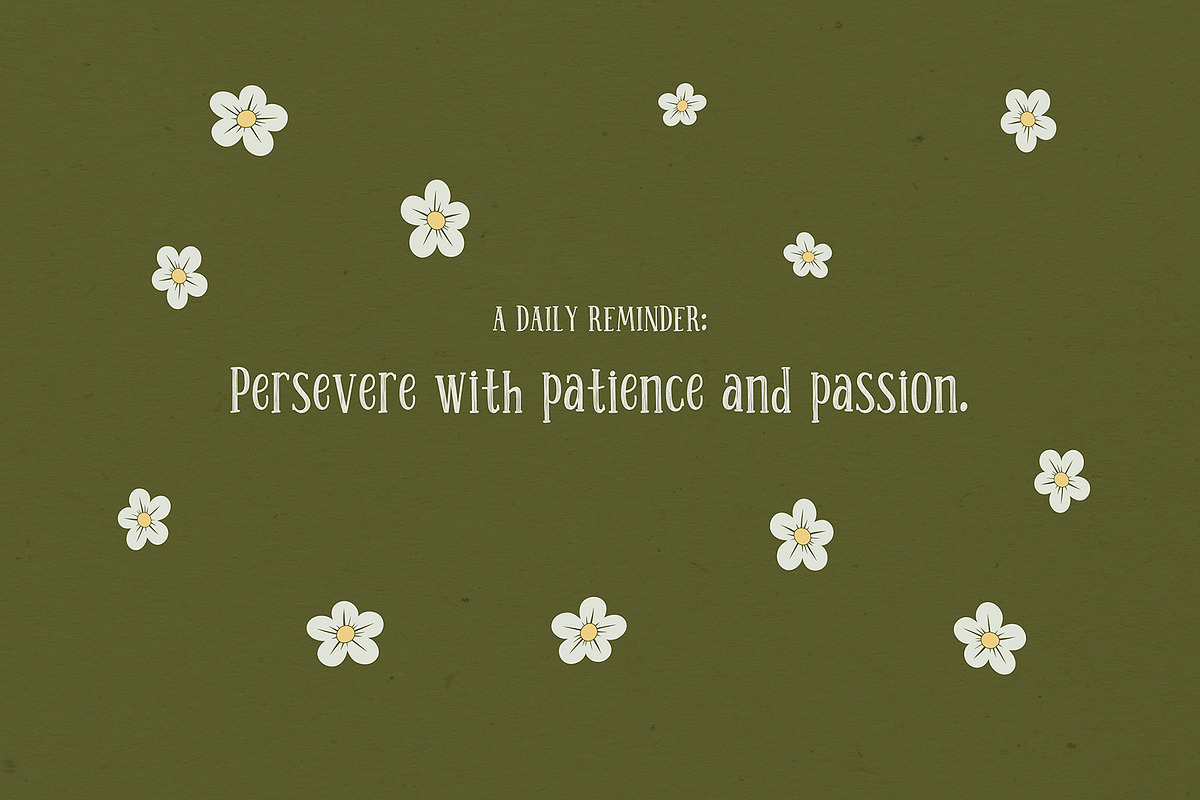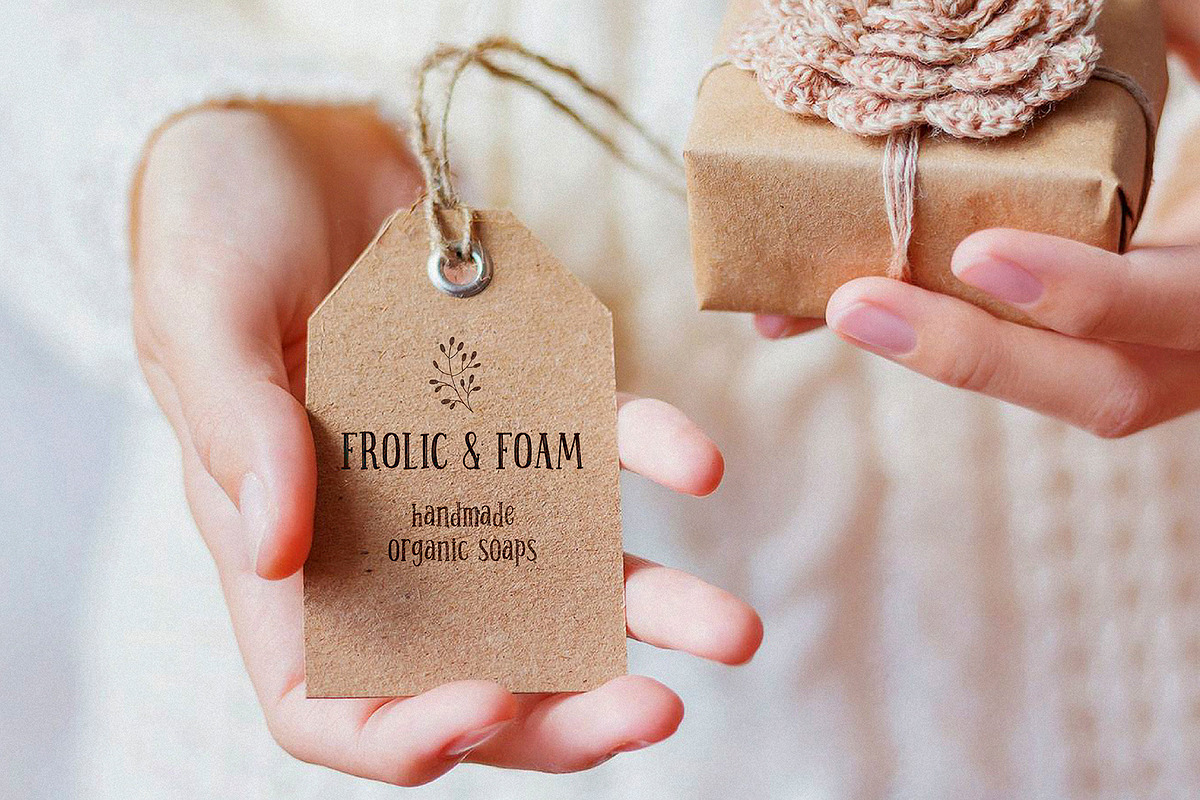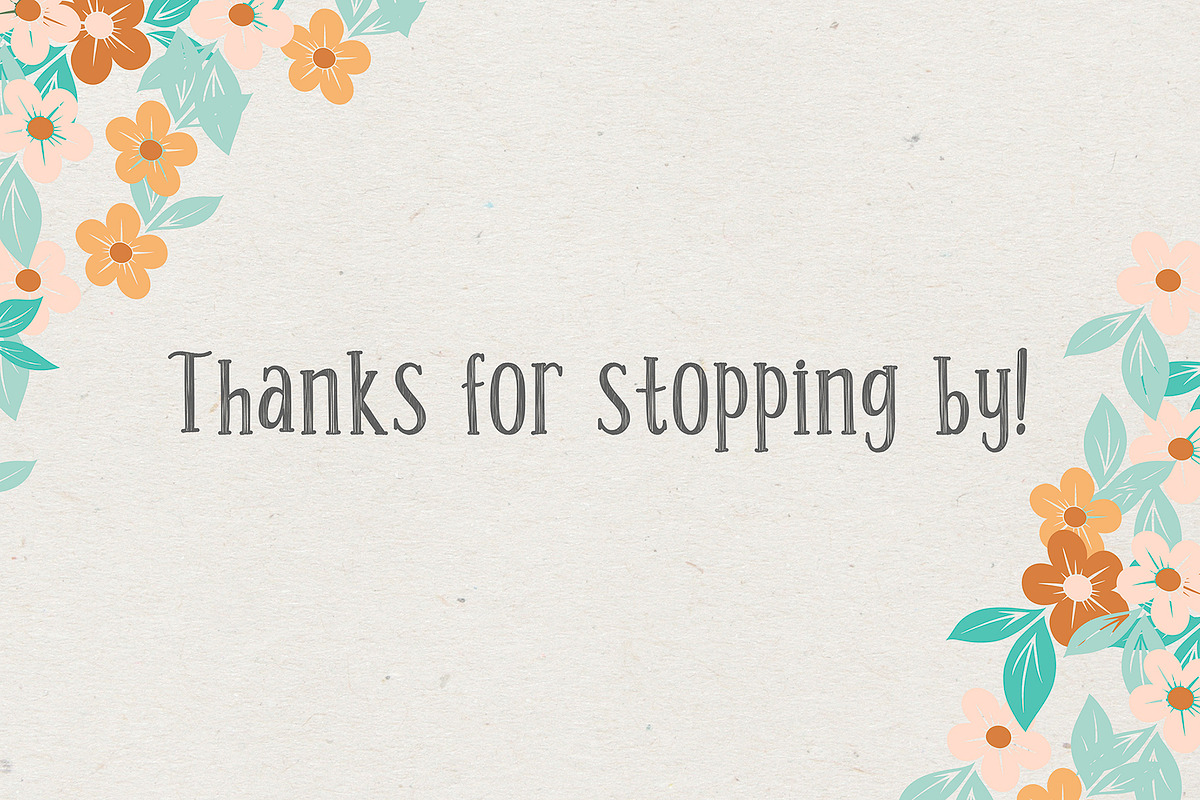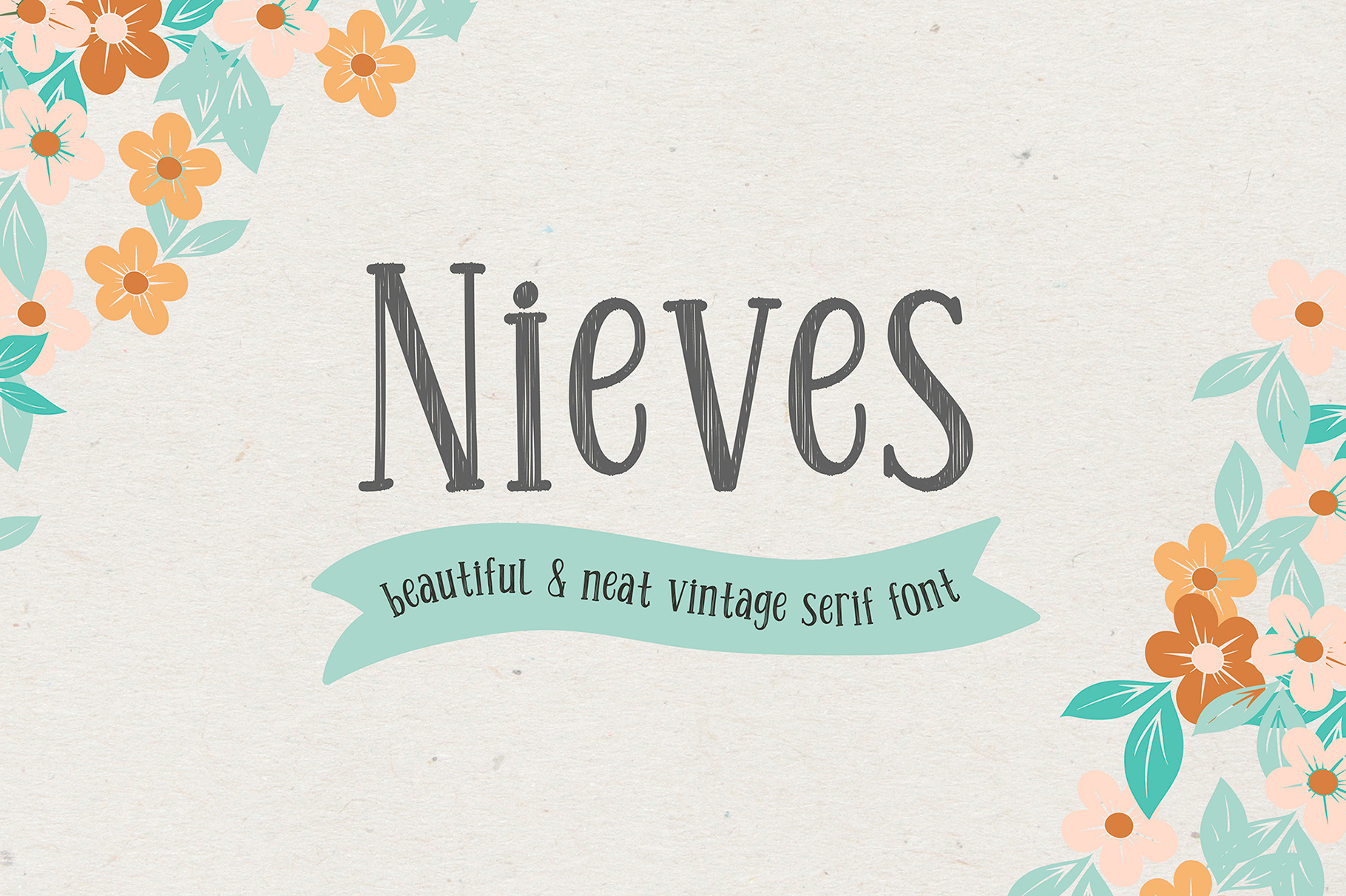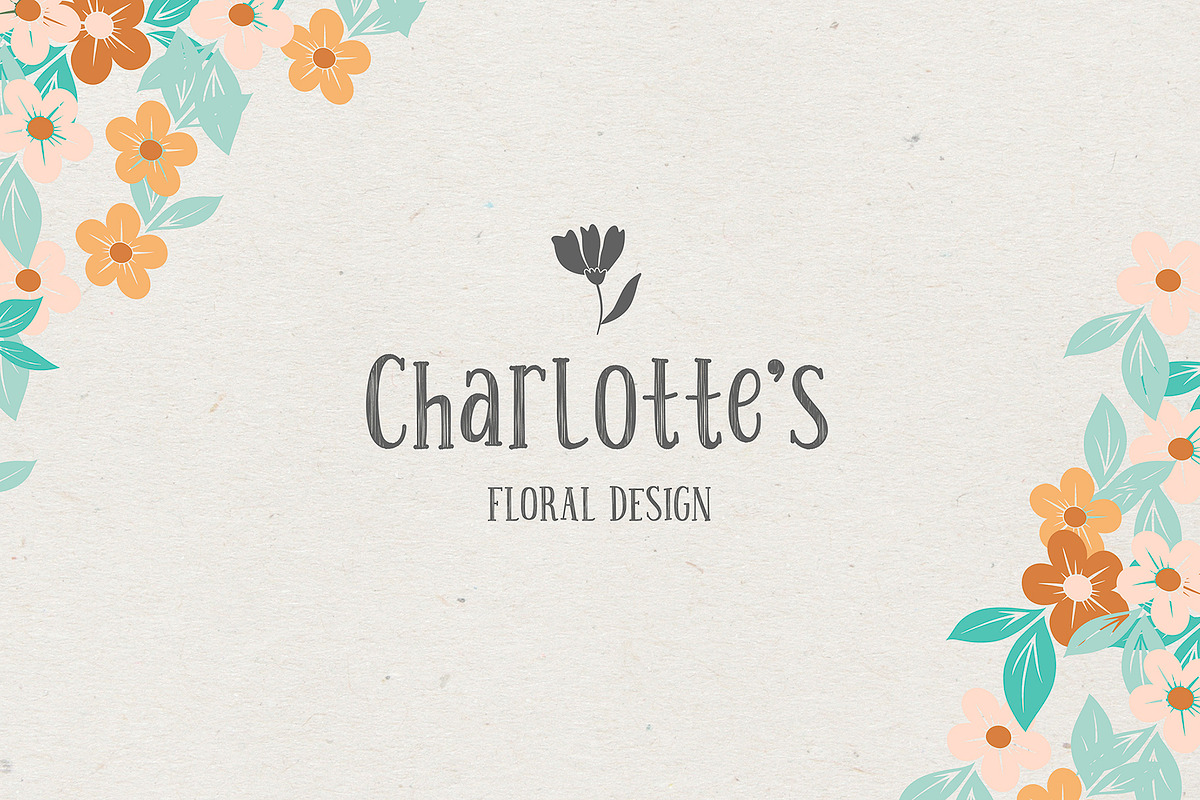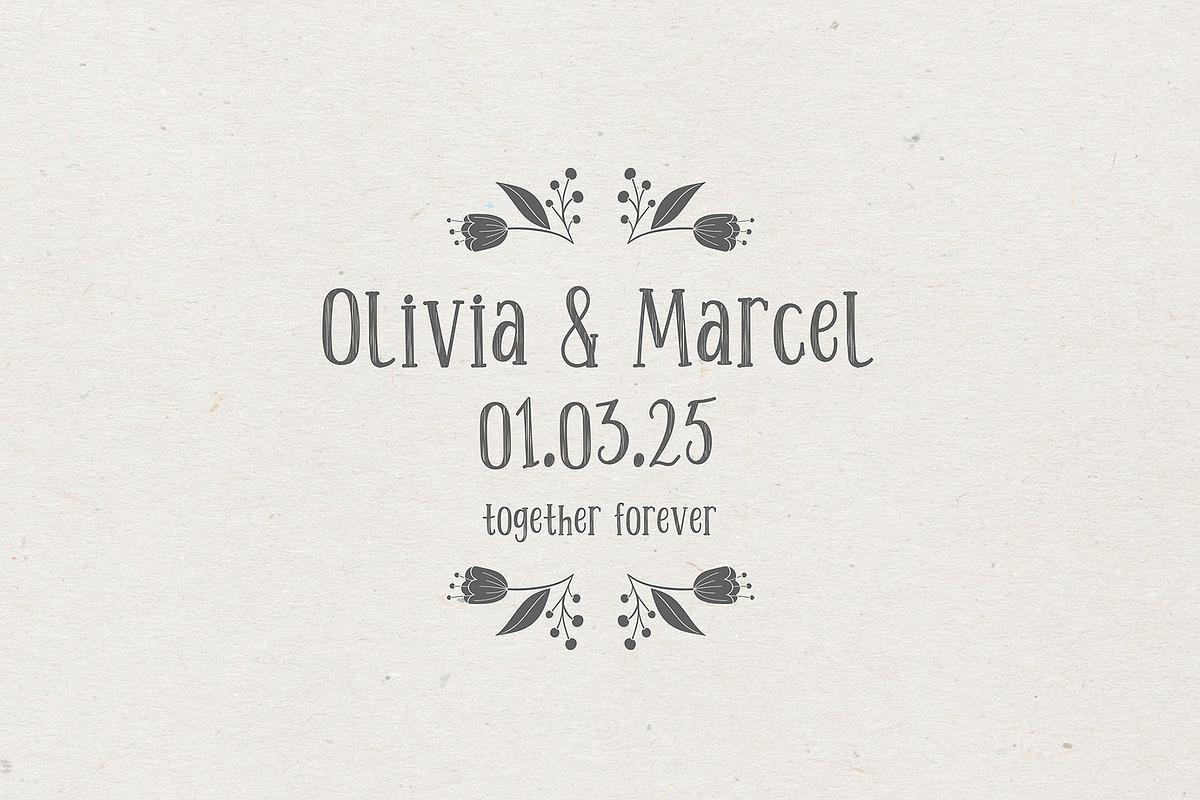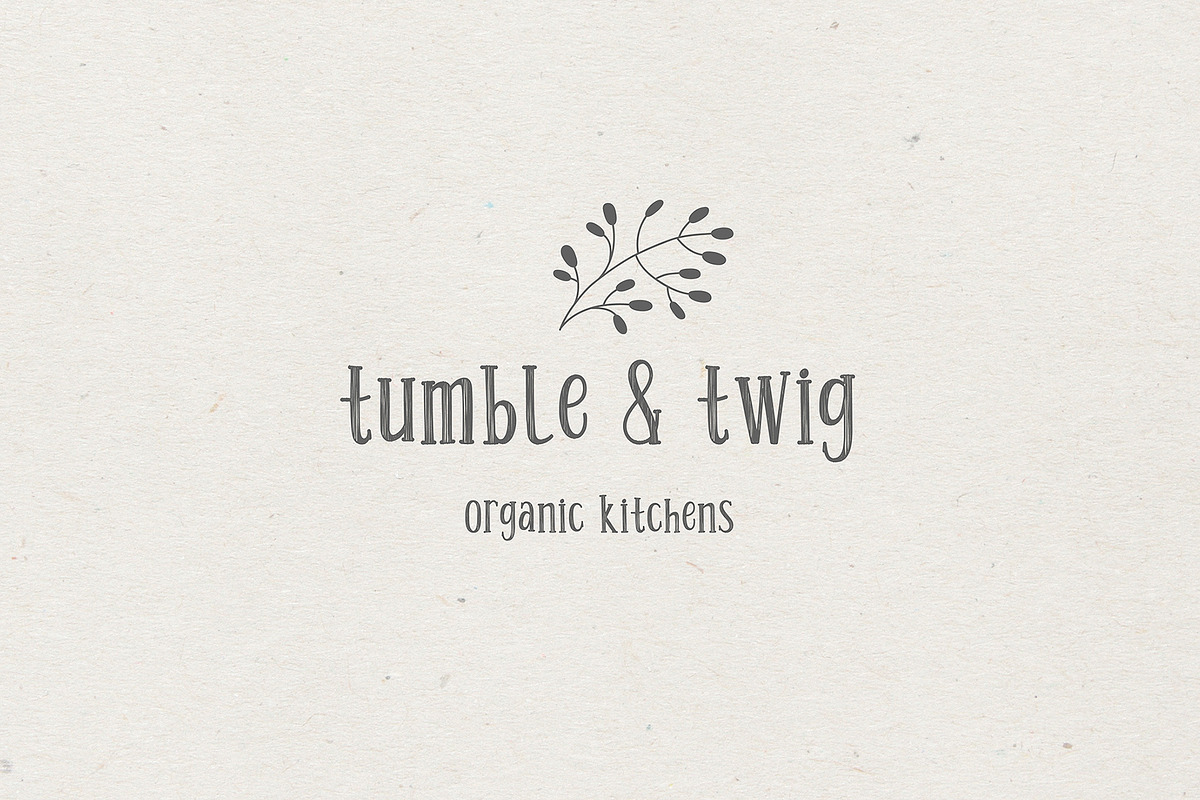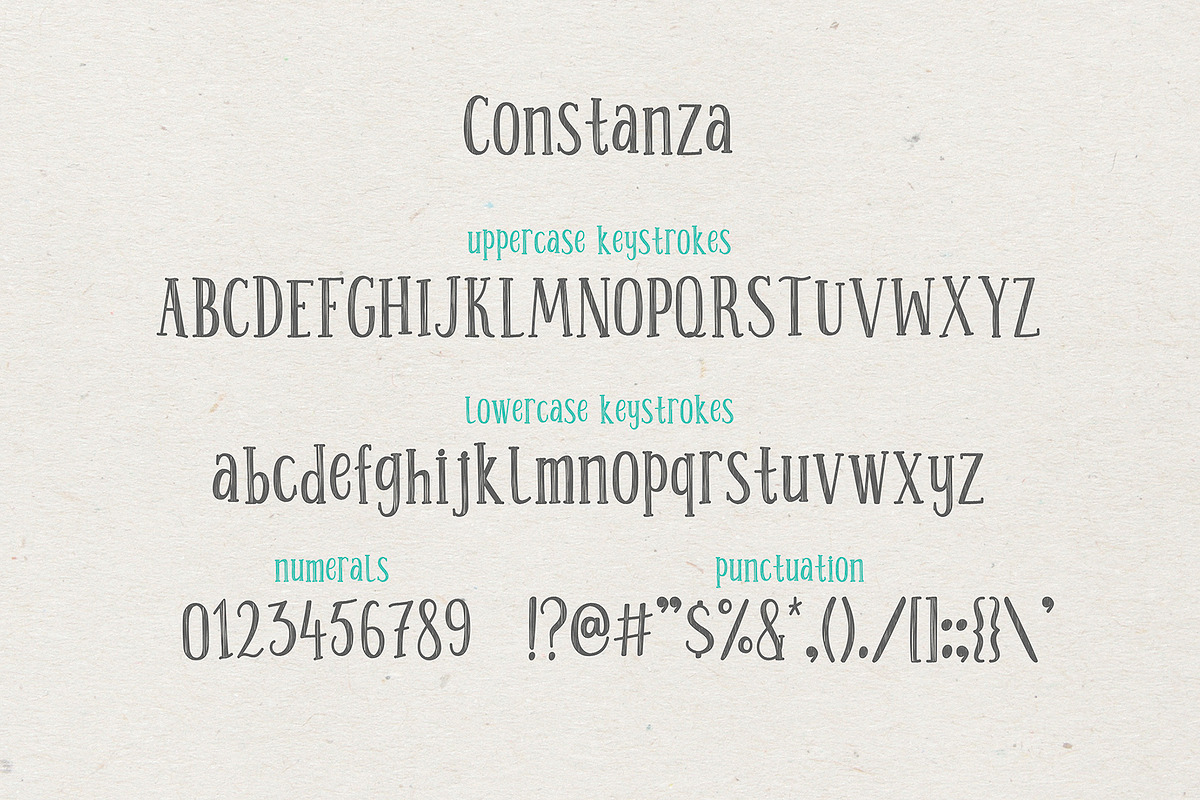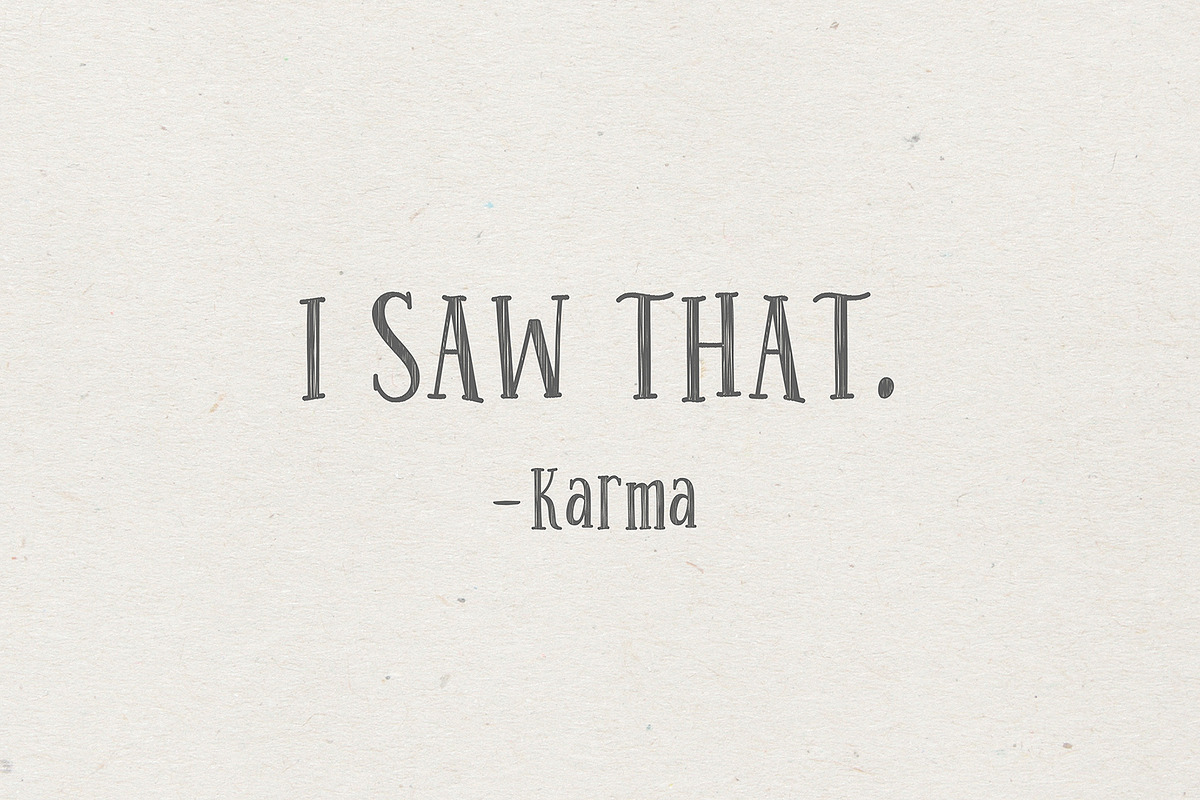
Nieves - neat vintage serif font
Say hello to the freshly baked beautiful and neat vintage serif font! Amazing handwritten font Nieves :)
The unusual, freshly baked font is perfect for greetings, illustrations, children's books, delicious packaging, labels, logos and much more :)
This beautiful neat retro font with imperfect ink edges and slightly sloppy shading is inspired by nature. Eco-friendly fashion takes into account the health of consumers, the health of the planet. The font "Nieves" is perfectly combined with any stylized graphics, watercolors, and also looks great on its own within the framework of a minimalist design. Play with letters to get different effects.
Font features:
- A-Z; character set a-z;
- 1 language (English);
- numbers and punctuation marks, symbols.